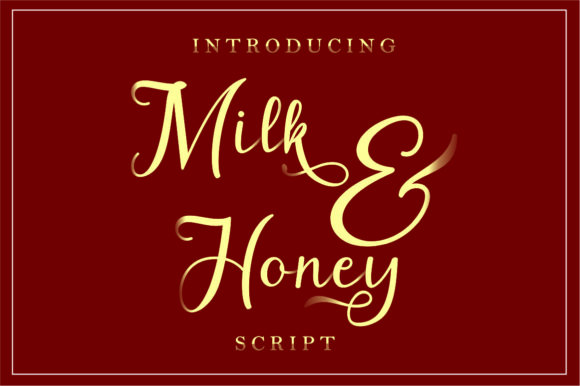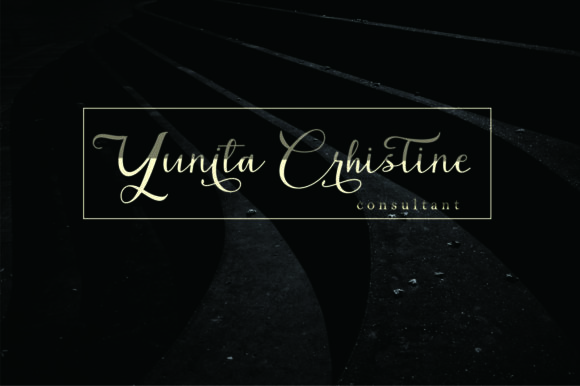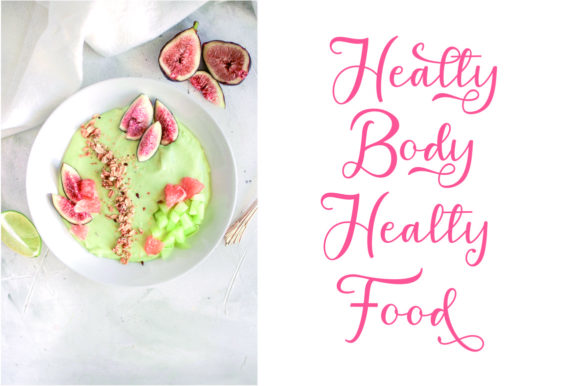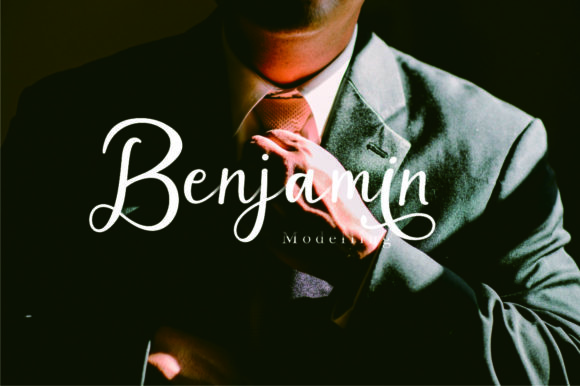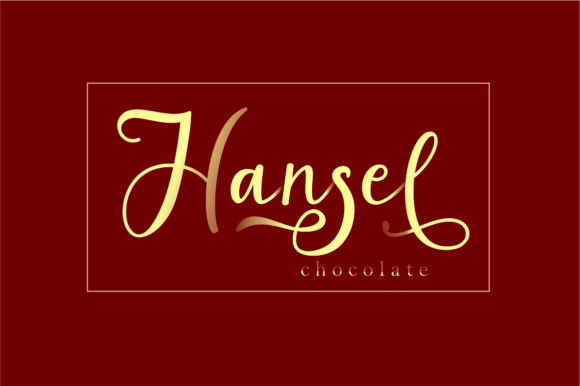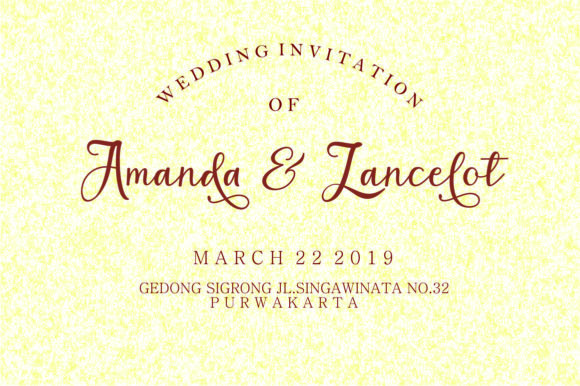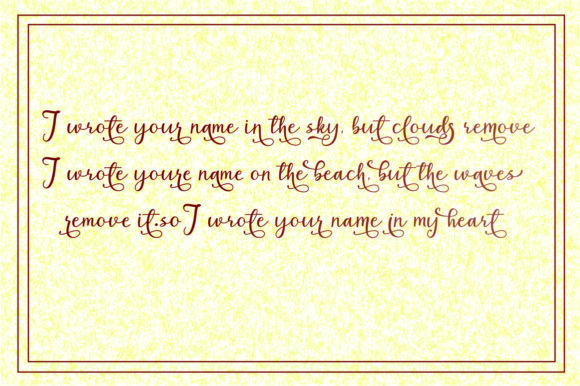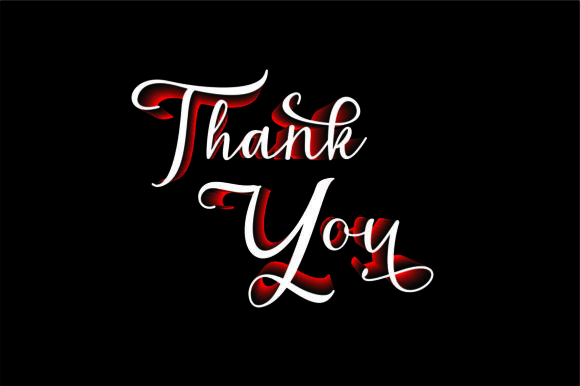
Milk & Honey Font
About Milk & Honey Font
Milk & Honey is a beautiful and elegant script font that is perfect for packaging, photography, magazines, quotes, and beautiful lettering.